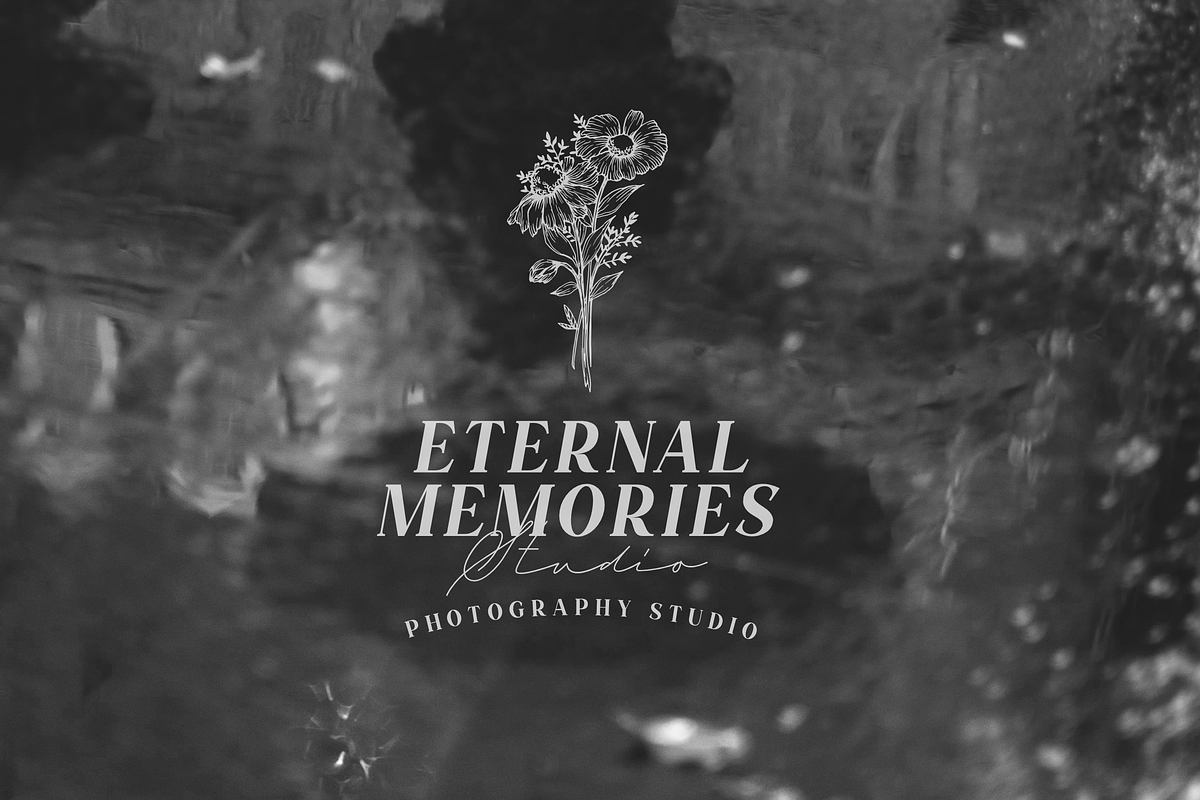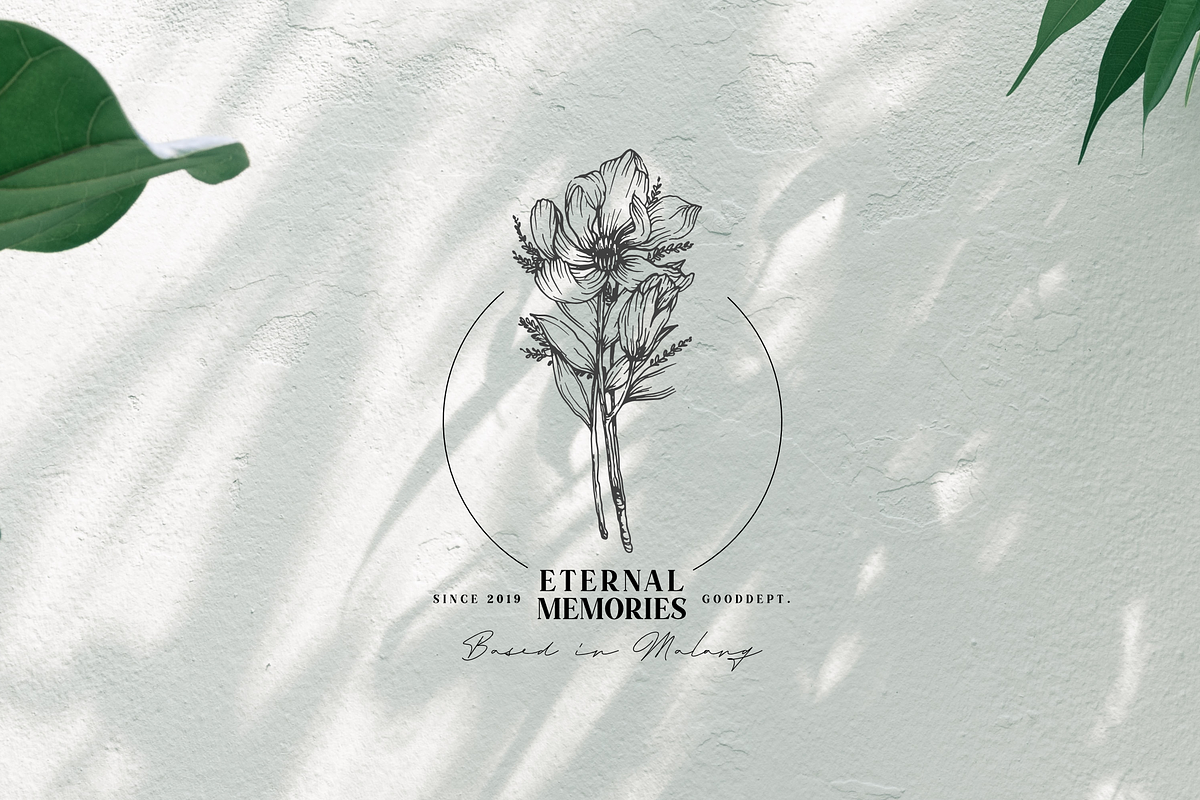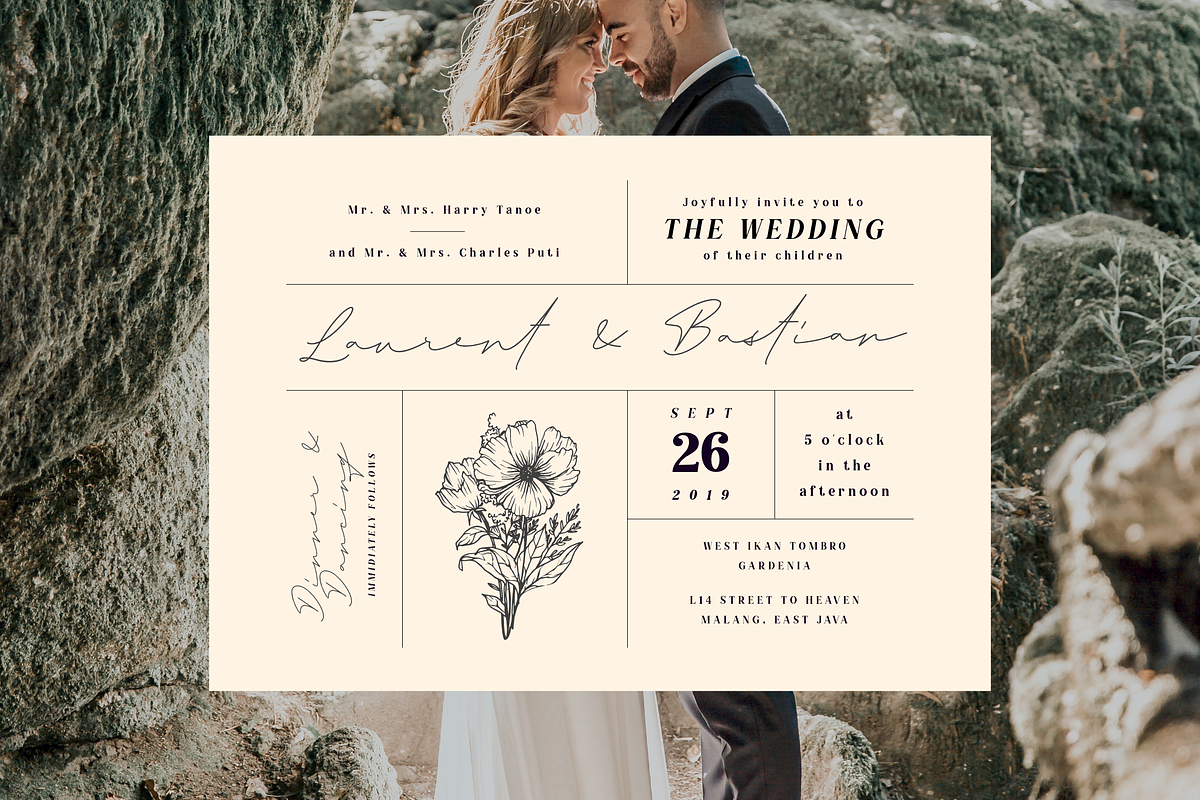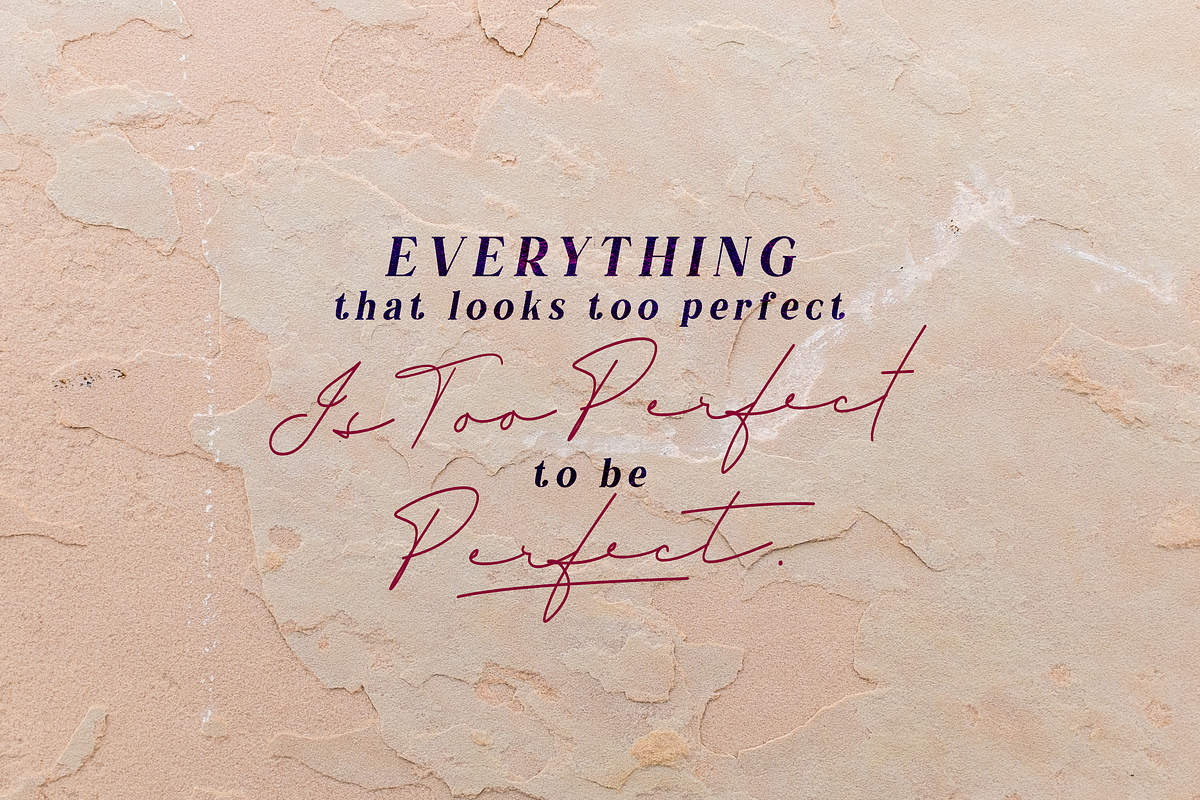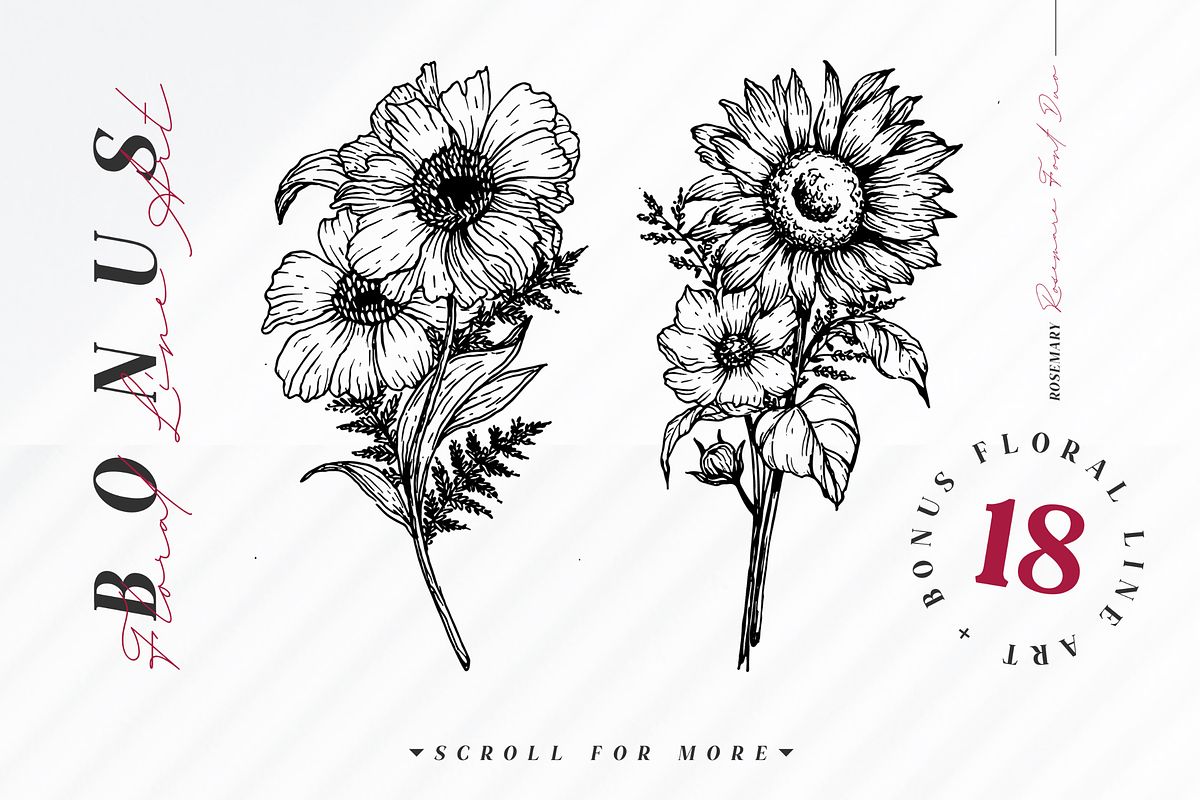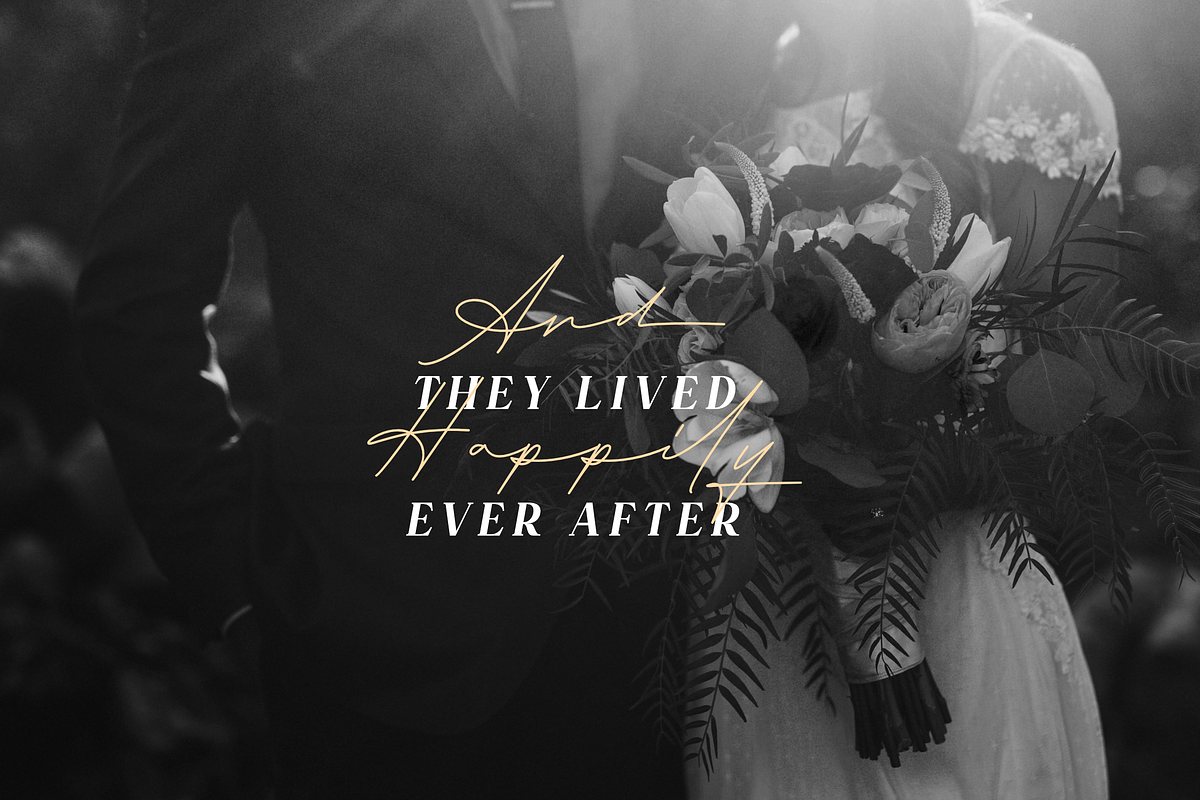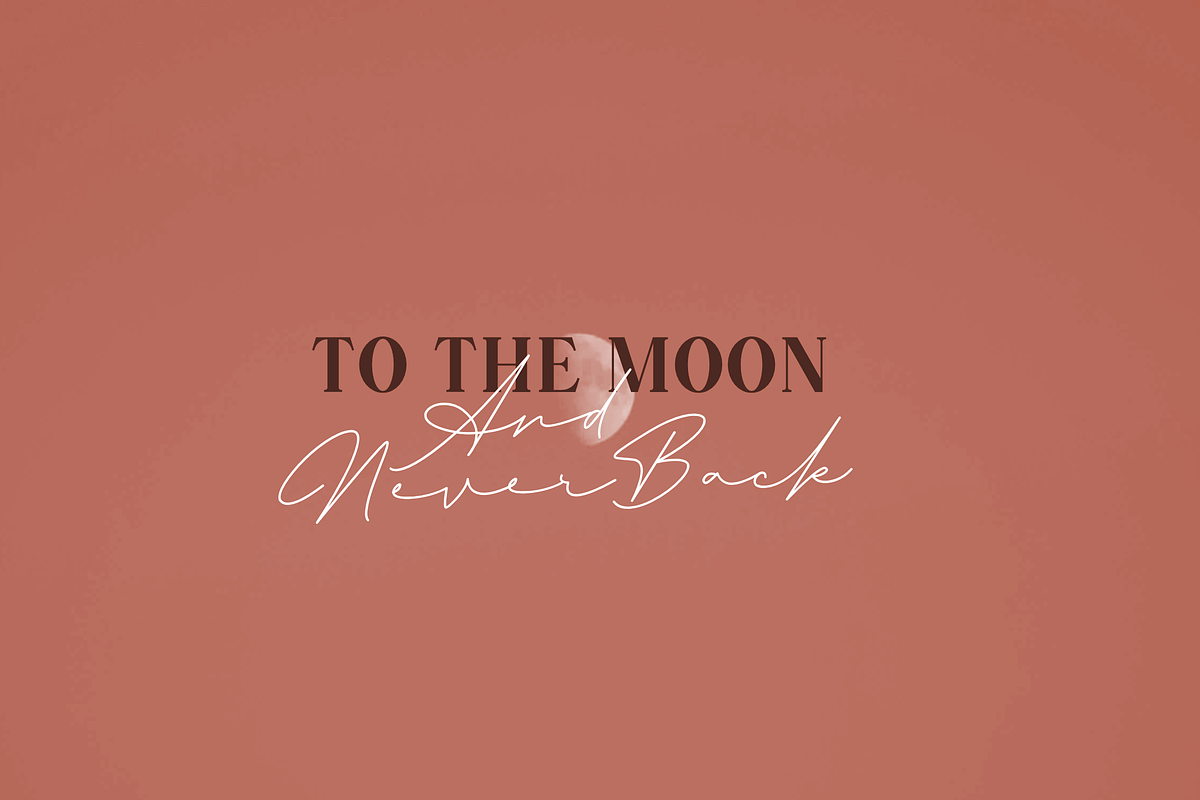
TN Rosemary Font Duo & Graphic
Hello, looking for a new elegant font with classy, modern and romantic feels? Say hello to Rosemary an elegant font duo. It comes with modern and classy combo font, serif and signature style. You can combine it to make a beautiful typography.
Rosemary Font Duo is perfect for your up coming projects. Such as modern invitation design, branding, stationery design, blog design, modern advertising design, card invitation, art quote, home decor, book/cover title, special events ( wedding, birthday, etc ), and any more modern elegant design.
Rosemary Signature (.ttf + .otf) comes with upper and lowercase Standard Characters, Punctuation, Numerals. And other Glyphs variation of the OpenType features such as Standard Ligature (65 Ligatures), Swash, Stylistic Alternate and 6 Stylistic Set (ss01 - ss06).
Rosemary Slant Serif (.ttf + .otf) the slant version of Rosemary Serif.
- It comes with modern and classy combo font, serif and signature style.
- WHAT YOU GET Rosemary Signature (.ttf + .otf) comes with upper and lowercase Standard Characters, Punctuation, Numerals.
- Rosemary Serif (.ttf + .otf) comes with upper and lowercase Standard Characters, Punctuation, Numerals.
- Includes a range of multilingual characters.
- And other Glyphs variation of the OpenType features such as Standard Ligature (65 Ligatures), Swash, Stylistic Alternate and 6 Stylistic Set